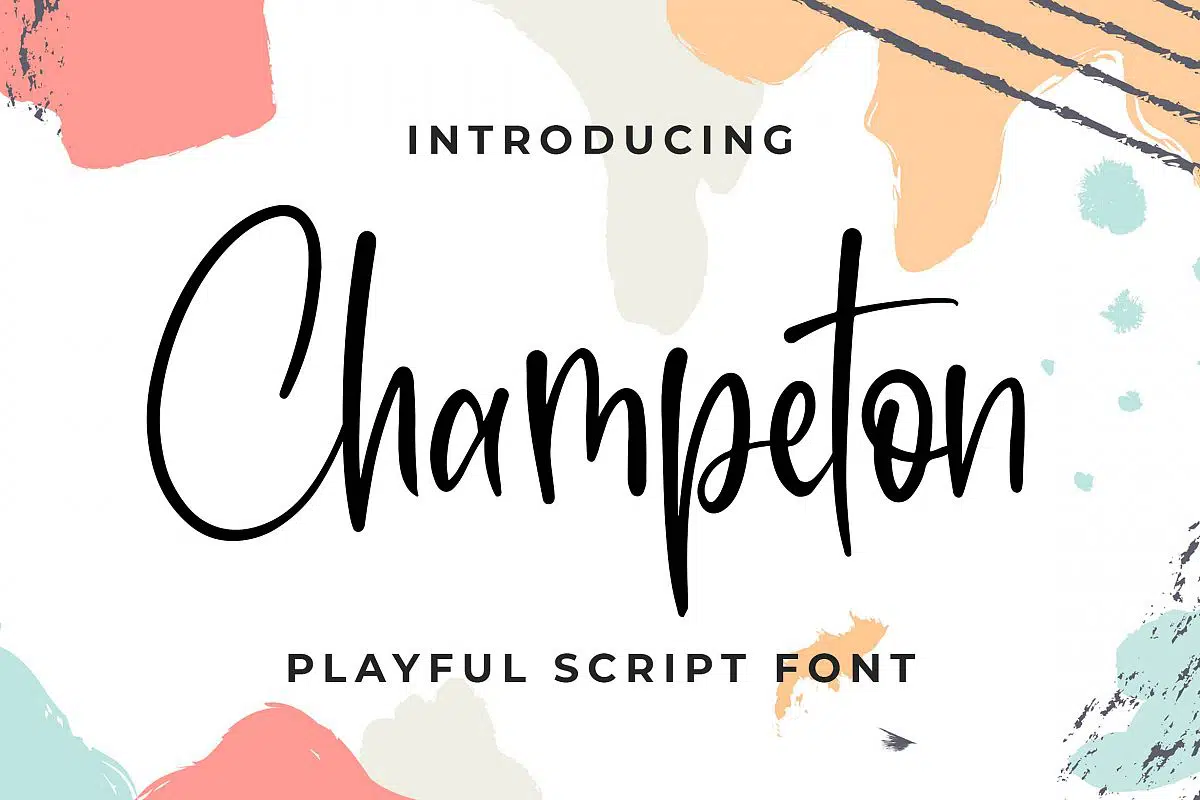
Champeton – Playful Script Font
Champeton Playful Script Font is perfect for cheerful children's branding, playful party invitations, fun educational materials, whimsical toy packaging, vibrant candy store signage, joyful birthday decorations, animated social media graphics, creative daycare centers, bouncy greeting cards, and delightful entertainment campaigns.
Champeton Playful Script Font is exciting because it radiates boundless joy and childlike wonder through bouncy, energetic letterforms that dance with playful spirit and infectious enthusiasm that instantly brings smiles. This delightfully crafted script combines youthful exuberance with elegant readability, making it perfect for brands that want to communicate happiness, creativity, and pure fun that appeals to both children and the young-at-heart.
The Champeton Playful Script Font family includes bouncy script weights with playful character styling, featuring cheerful decorative elements and whimsical flourishes. The font showcases fun design details, child-friendly proportions, and joyful character variations that create a comprehensive typographic system for entertainment and family-oriented brand applications.
The playful sophistication of Champeton Playful Script Font makes it an invaluable resource for children's companies, entertainment venues, and family brands that need typography capable of communicating pure joy and creative playfulness. The font's energetic character helps establish immediate emotional connections that resonate with families seeking fun experiences, creative learning opportunities, and joyful entertainment for children.
Toy manufacturers, children's entertainers, and family service providers consistently choose Champeton Playful Script Font for its ability to convey authentic playfulness and childhood joy through typography. The font excels in applications where creating positive emotional responses and memorable brand experiences are essential to success, making it particularly effective for children's products, family entertainment, and educational services targeting young families.
This font's comprehensive character set includes playfully-styled letterforms, cheerful numerals, bouncy punctuation marks, and fun symbols that support authentic childhood typography composition. The consistent joyful styling maintains the playful theme throughout all characters while ensuring professional readability across all children's and family design projects requiring Champeton Playful Script Font Free Download functionality.